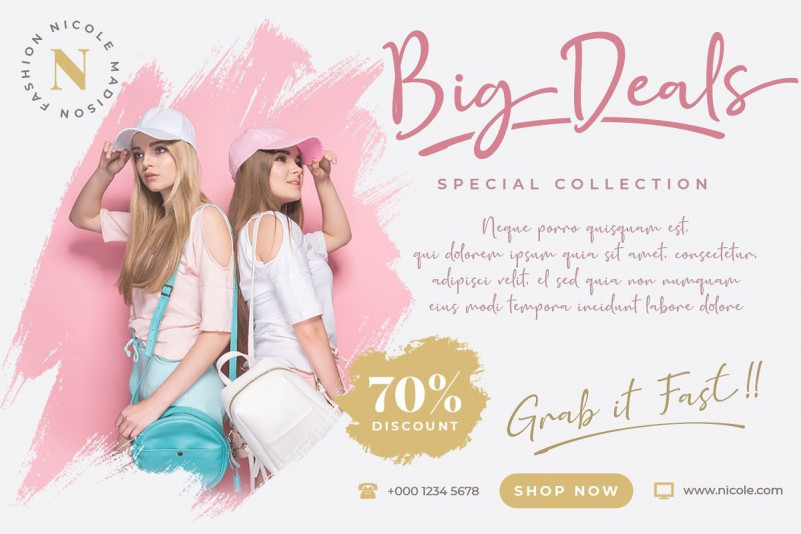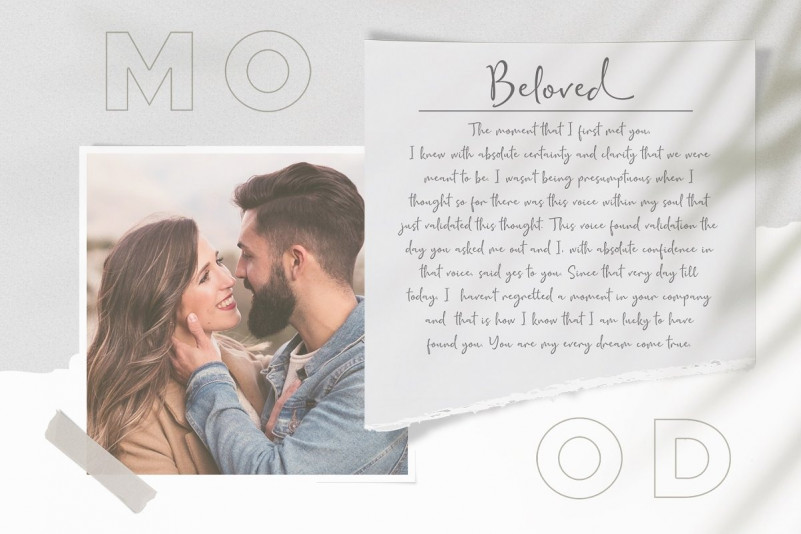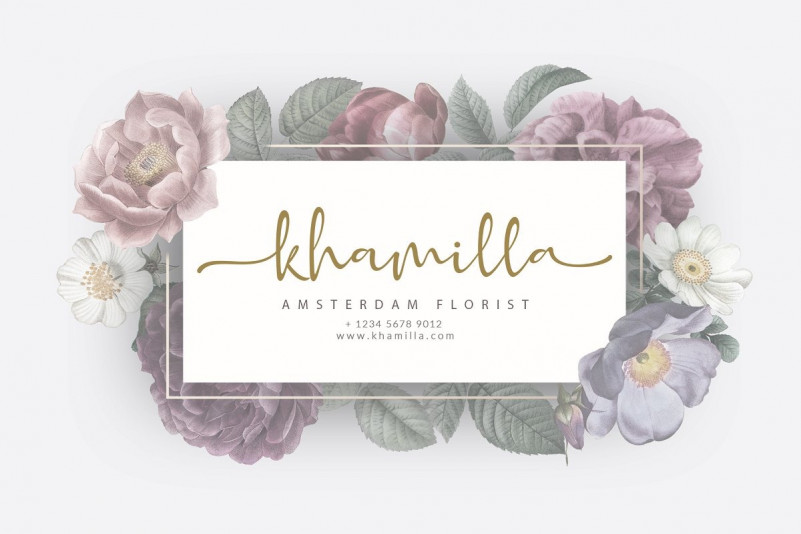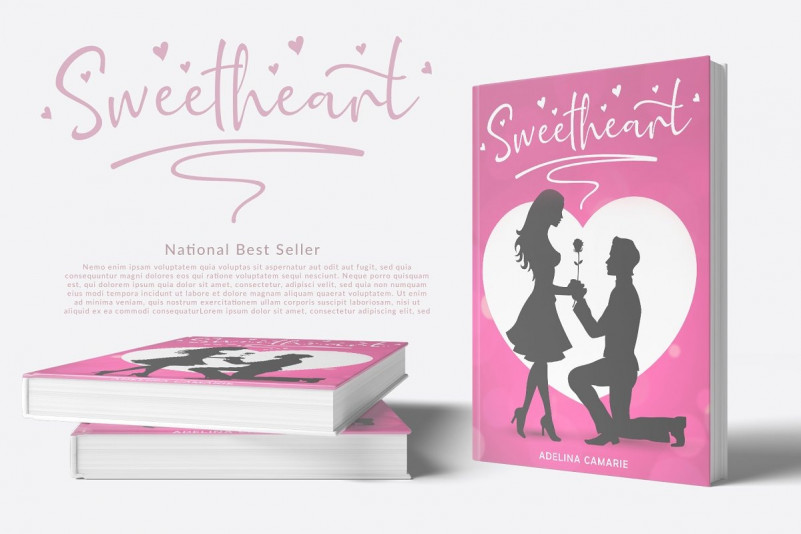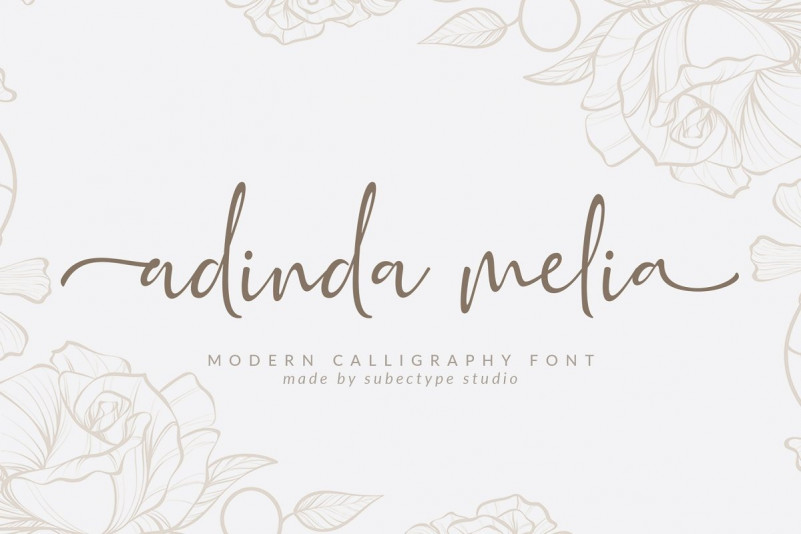
Adinda Melia Script Font
Say hello to Adinda Melia Font. Introducing a modern calligraphy font, a beautiful flowing font with gorgeous features. This font could be used for feminine designs like woman-owned or woman-centric brands, wedding invitations, or projects requiring a handwritten element. It is designed and shared by Subectype Studio. Adinda Melia Script is a lovely modern calligraphy type with with a touch of handwriting style. this font is perfect for creating signature logos and watermarks for photography studio or wedding invitation. It’s includes full set of beautifull hand lettered uppercase and lowercase letters, numerals, a large range of punctuation and ligatures. All lowercase letters include beginning and ending swashes, giving realistic hand-lettered style.